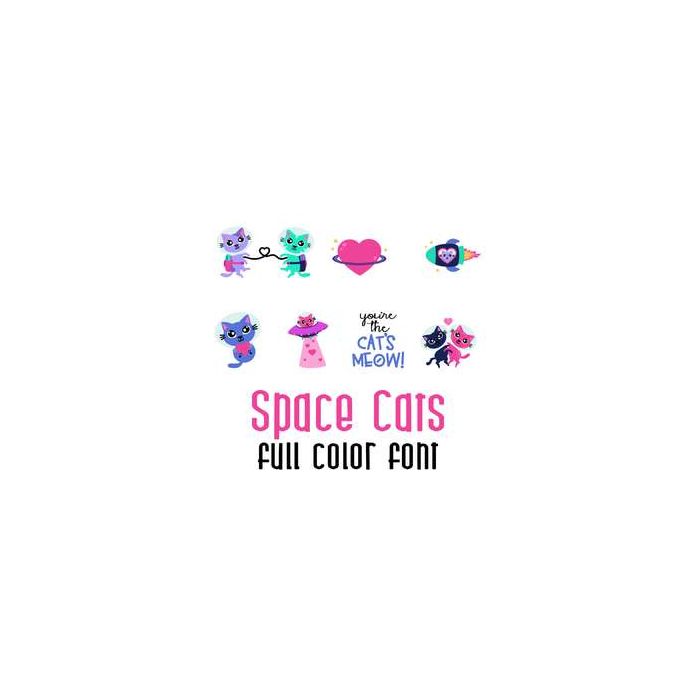
This adorable full color doodlebat font features adorable Valentine themed space cat images Perfect for cards, crafts, gifts, decor, scrap book pages, planner stickers and more!